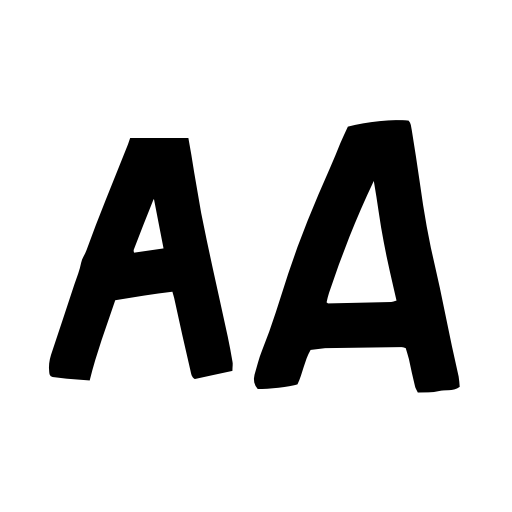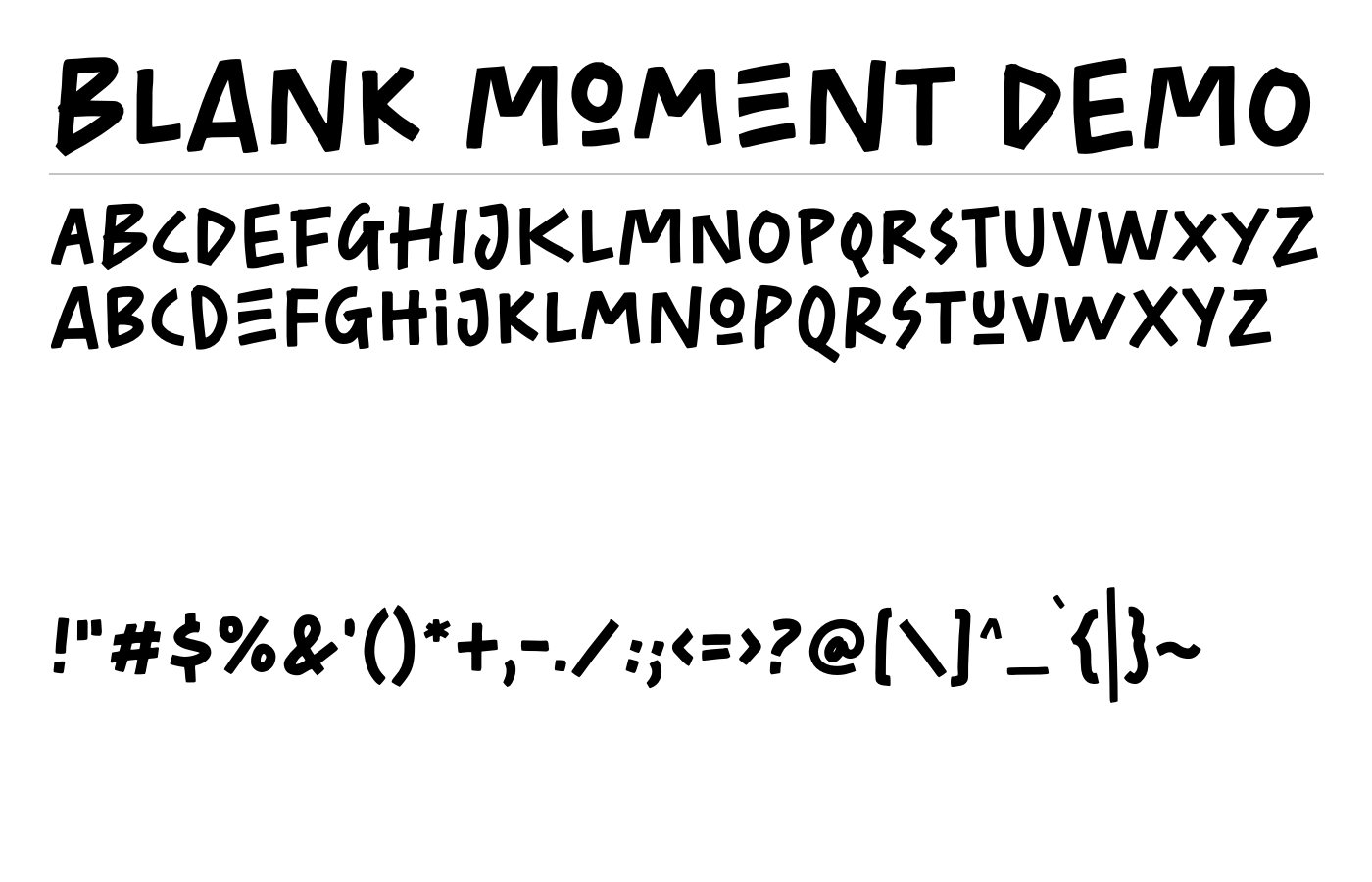
Blank Moment DEMO is a playful and informal handwritten sans serif font with uneven, bold strokes that give it a lively, casual character. Its quirky letter shapes and slightly irregular forms make it perfect for fun, creative projects like posters, invitations, and branding that seek a friendly, approachable vibe. This font works best in display use where its unique personality can shine and add a personal touch.
Blank Moment DEMO Font
About Blank Moment DEMO Font